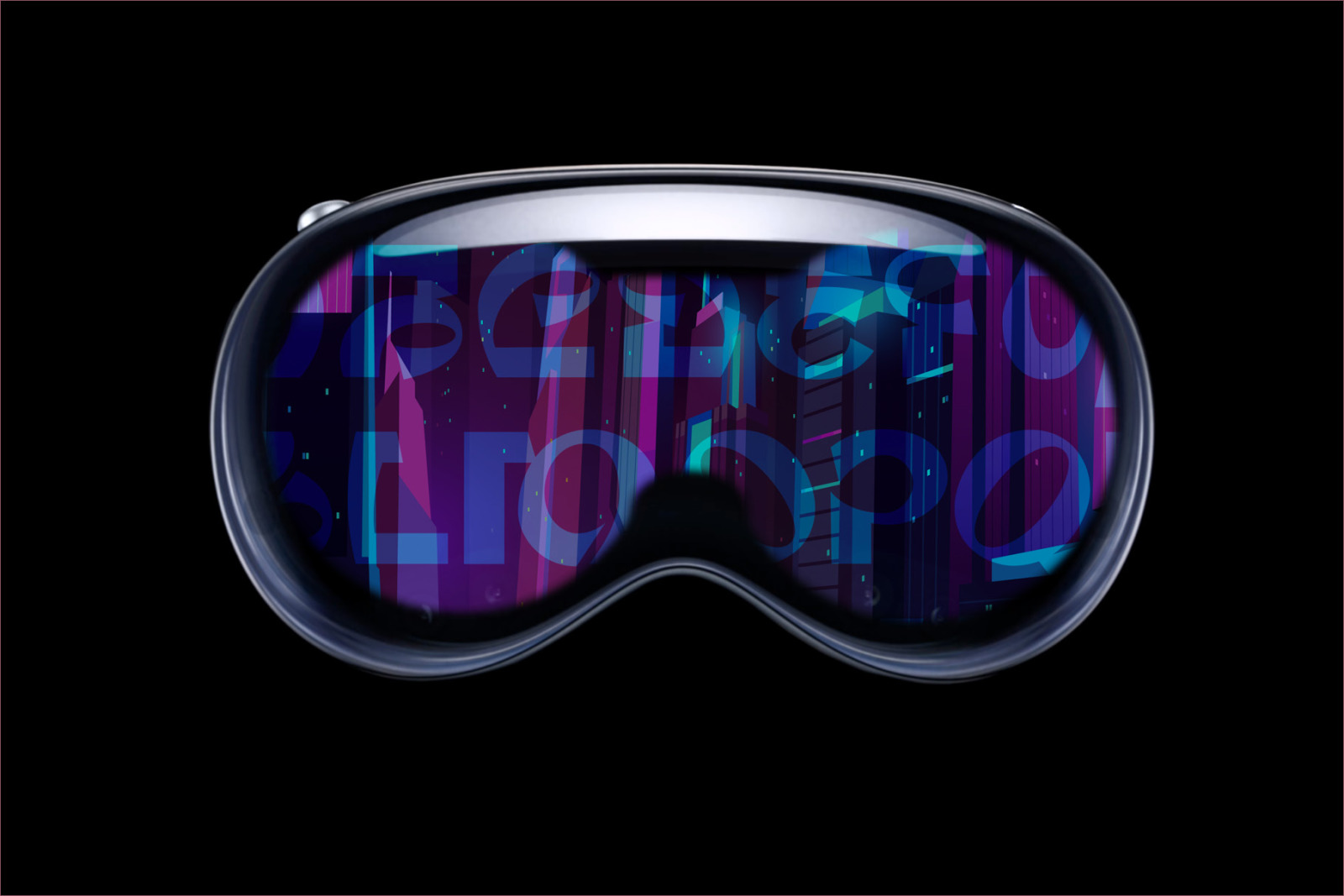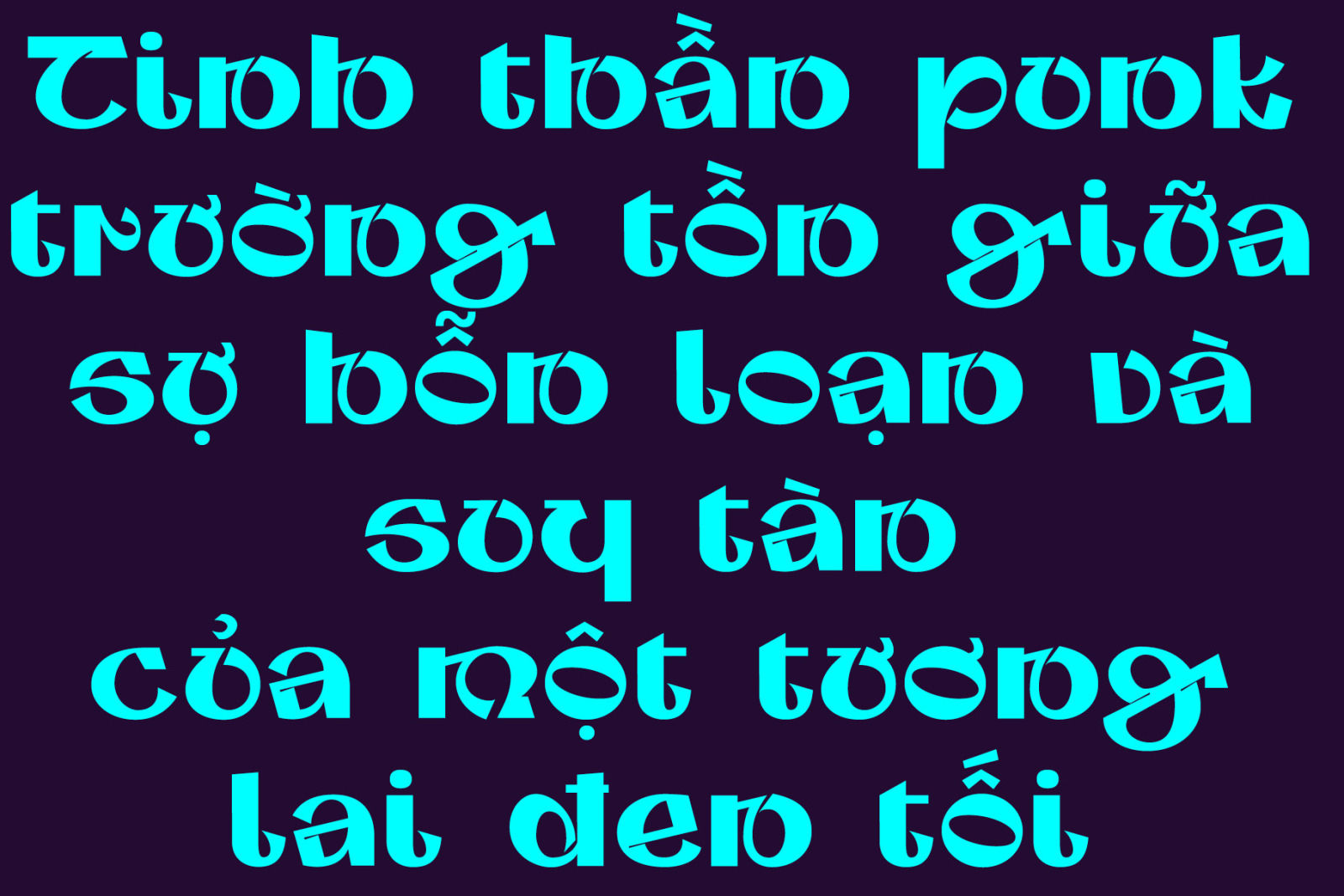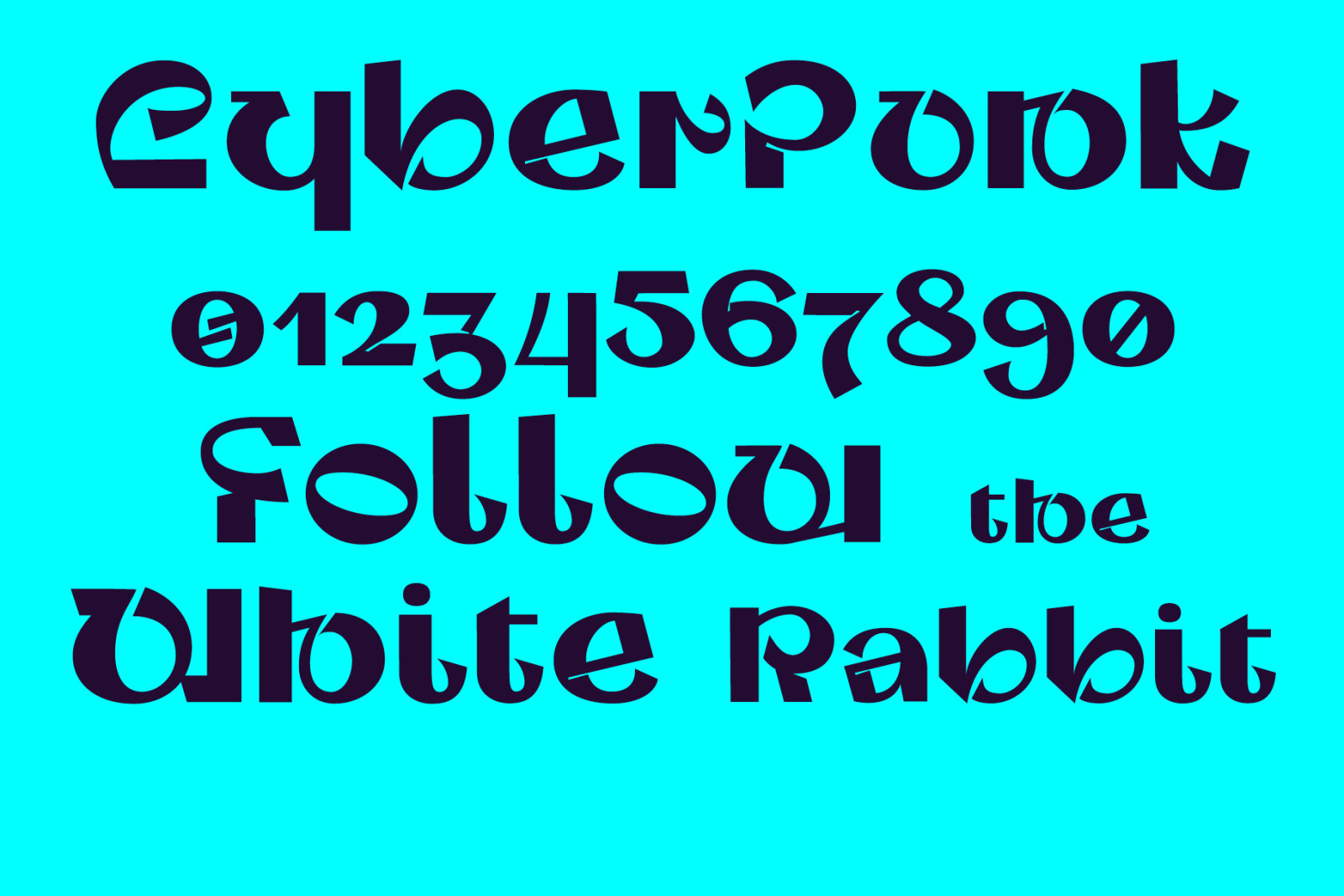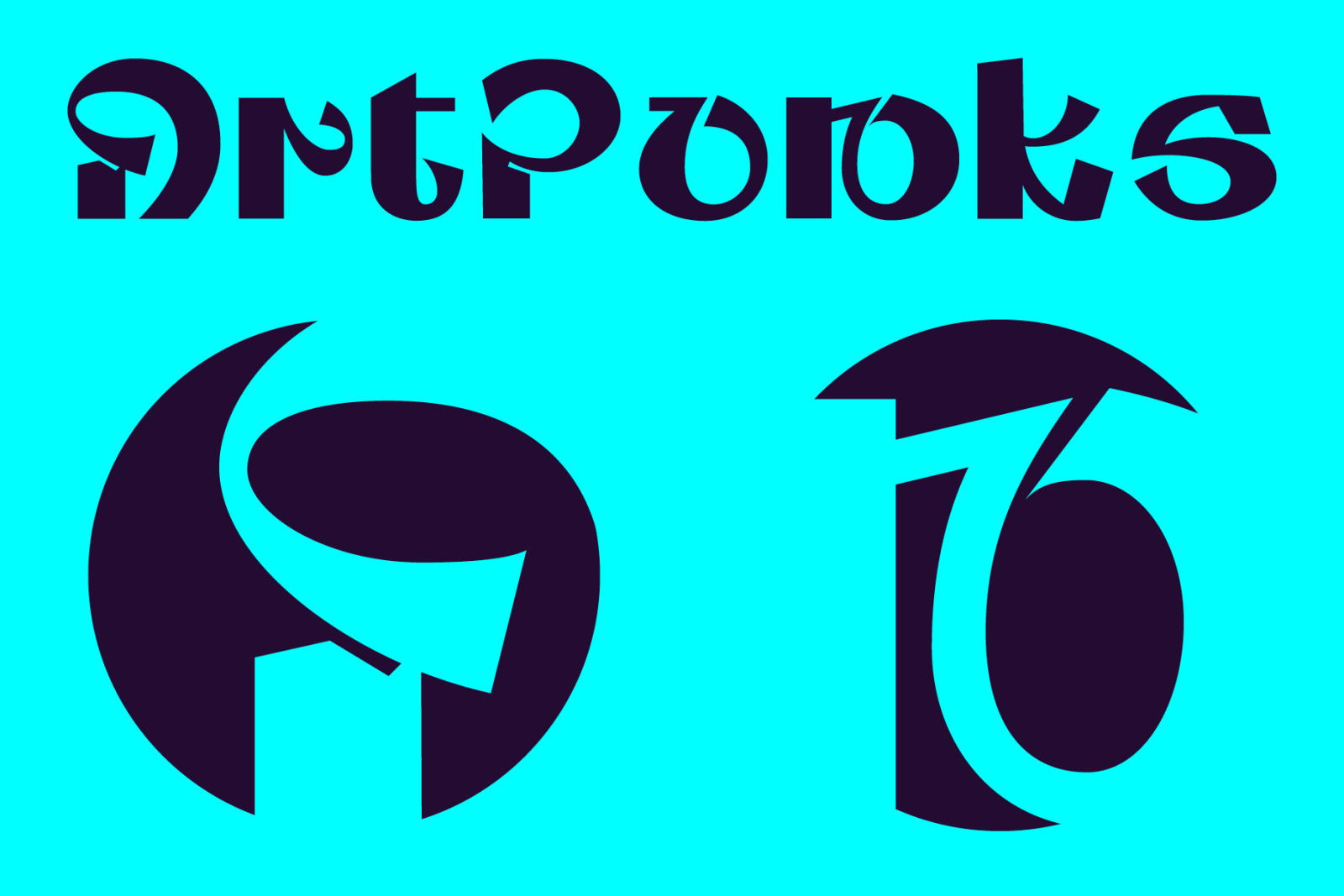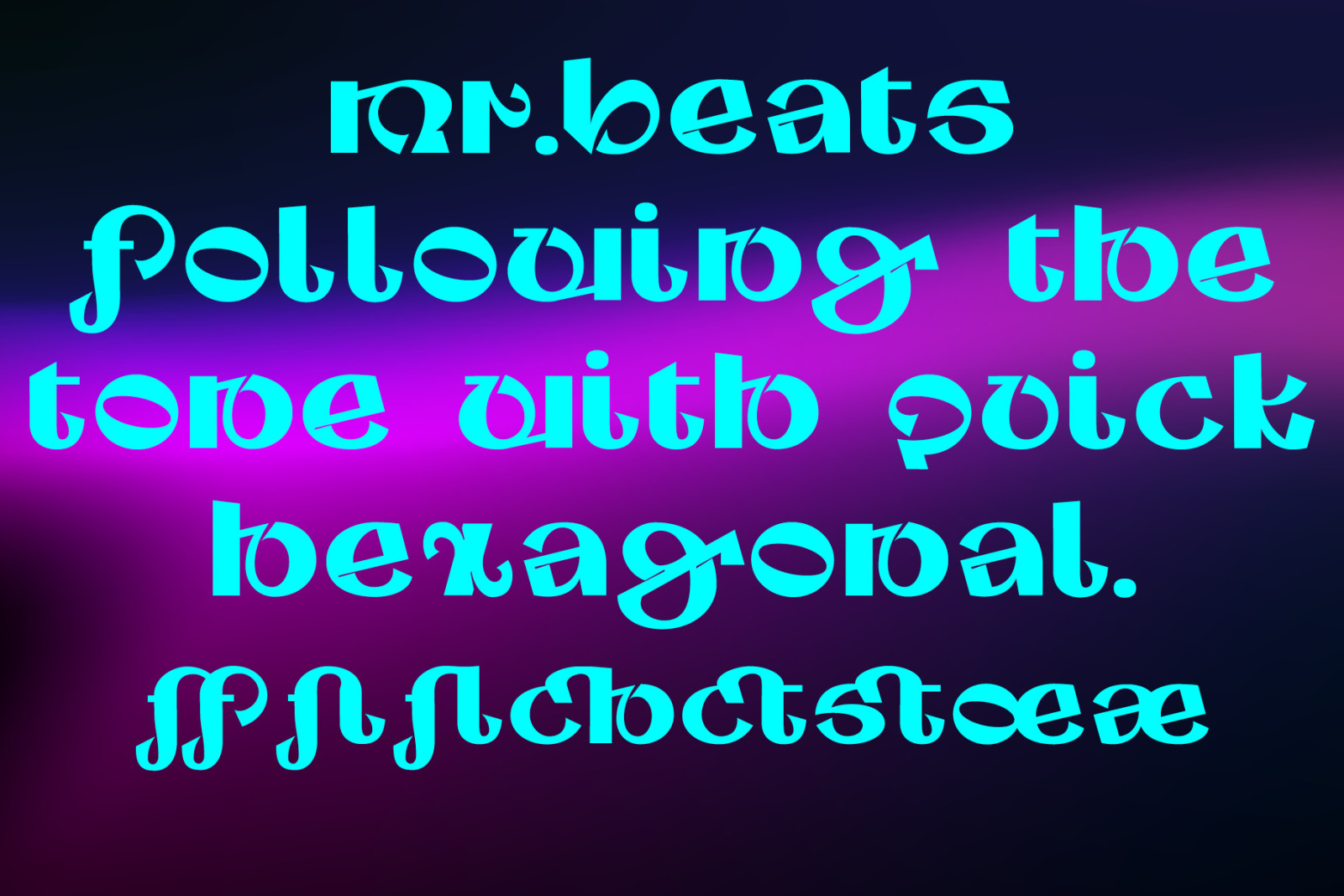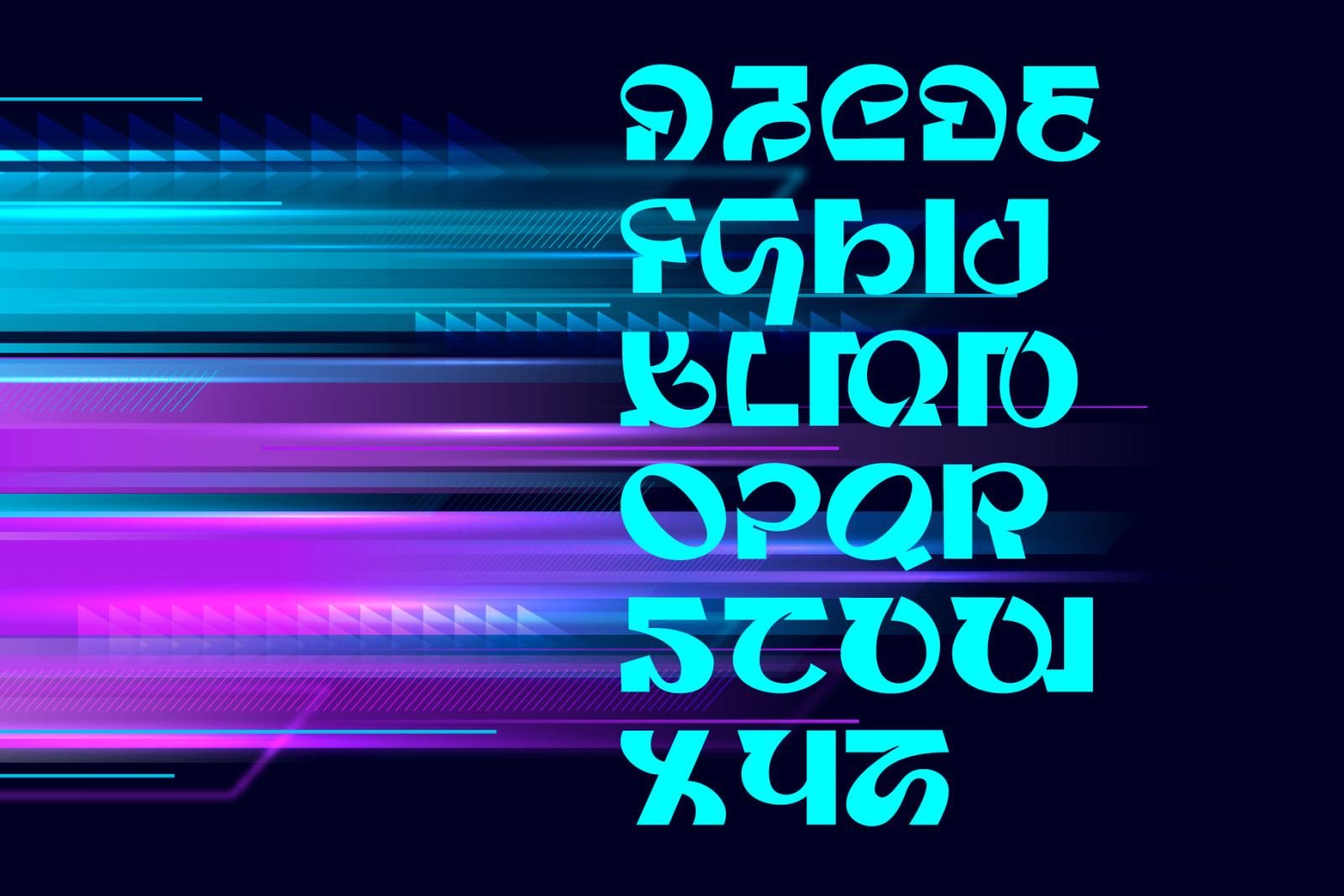
Cyanus - display font
Introducing Cyanus: A Harmonious Blend of Styles
This captivating typeface is a thrilling amalgamation of art-deco, street art, uncial pen writing, and experimental typography. The result is a truly unique and modern design that evokes elements of cyberpunk and hints at a futuristic aesthetic. Above all, it embodies the essence of handwriting, infusing each letter with a sense of personal touch and authenticity.
Drawing inspiration from the elegance of art deco, this typeface exudes sophistication and intricate detailing. It's bold lines and geometric forms pay homage to the iconic style while adding a contemporary twist. The street art influence injects an urban edge, infusing the typeface with a rebellious spirit and vibrant energy.
Uncial pen writing brings a touch of calligraphic charm to the typeface, enriching it with organic, flowing lines that mimic the grace and fluidity of hand-drawn letters. This element enhances the personal connection between the reader and the text, fostering a sense of intimacy and warmth.
Experimental typography pushes the boundaries of traditional design, introducing unexpected shapes and daring compositions. This element sparks curiosity and invites exploration, making the typeface an engaging and thought-provoking visual experience. It embraces the spirit of innovation and propels the design into the realms of the avant-garde.
The result is a typeface that is both familiar and groundbreaking—a harmonious blend of various styles that seamlessly intertwine. It captures the essence of diverse influences yet emerges as a distinct and singular creation. Its dynamic nature allows it to adapt to various design contexts, breathing life into a range's projects from bold editorial layouts to cutting-edge branding.
Experience the excitement and uniqueness of this typeface fusion—a true embodiment of handwriting with a touch of art deco, street art, uncial pen writing, and experimental typography. Let it become a gateway to new creative possibilities, forging a path toward the modern and the extraordinary.